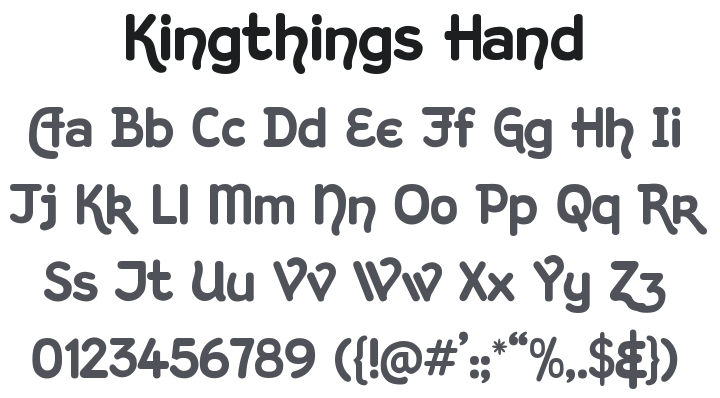
Kingthings Hand Font Family
• Kingthings Hand
• Kingthings Hand Light
About Kingthings Hand
This is based, arrogantly on my own hand writing, when writing up course notes, I thought - hmm, could use voice recognition and a handwriting font... sad really. Then it got sadder 'cos I was asked for something not so bold - although the light version may end up as the normal weight - later!